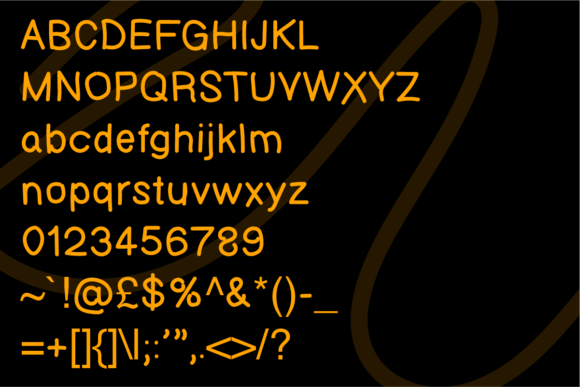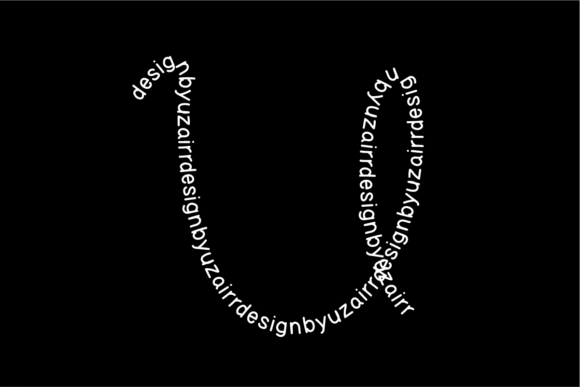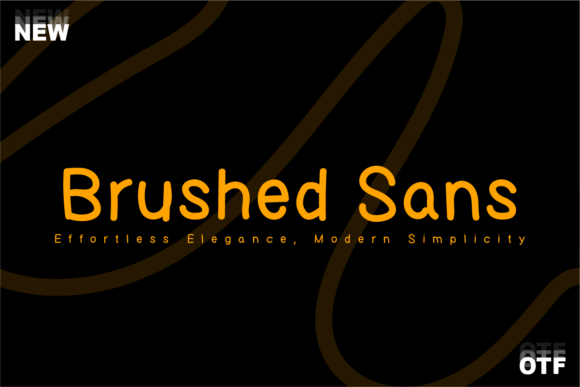
Introducing Brushed Sans: The Perfect Blend of Precision and Spontaneity
Have you ever been in the middle of a design project, and suddenly, you’re stuck on finding the right font? I recall a recent experience where I was working on a branding project for a trendy coffee shop. The client wanted a font that was both elegant and casual, but I just couldn’t seem to find the perfect fit. That’s when I stumbled upon Brushed Sans, a game-changing typeface that has since become my go-to for a wide range of design projects.
The Charm of Brushed Sans
Brushed Sans is a regular styled font that boasts a unique combination of precision and spontaneity. Drawing inspiration from the sans-serif family, this typeface has been tweaked with a hand-drawn touch to lend it an air of casual sophistication. The result is a font that exudes ingenuity and versatility, making it perfect for a plethora of design projects.
What I Love About Brushed Sans ✨
- ✅ Unique Character: Brushed Sans has a distinct personality that sets it apart from other fonts.
- ✅ High Readability: The font is clear and easy to read, even at smaller sizes.
- ✅ Versatility: Brushed Sans can be used for a wide range of design projects, from branding and advertising to packaging and digital media.
- ✅ Elegant yet Casual: This font strikes the perfect balance between elegance and casualness, making it suitable for various design contexts.
- ⚠️ Limited Use in Formal Contexts: While Brushed Sans is versatile, it may not be the best fit for formal or traditional designs, such as academic papers or corporate reports.
- ⚠️ Glyph Limitations: As with any font, there may be limitations to the number of glyphs available, which could impact its use in multilingual projects.
The Backstory of Brushed Sans
Brushed Sans was designed with the intention of creating a font that blends the precision of digital design with the spontaneity of hand-drawn typography. The designer aimed to craft a typeface that would be both elegant and casual, making it suitable for a wide range of design projects. The result is a font that exudes a sense of creativity and ingenuity.
Q: What makes Brushed Sans unique?
A: Brushed Sans is unique due to its blend of precision and spontaneity, making it a versatile font for various design projects.
Q: Can I use Brushed Sans for multilingual projects?
A: While Brushed Sans may have limitations in terms of glyphs, it can still be used for multilingual projects. However, it’s best to check the font’s glyph set to ensure it meets your specific needs.